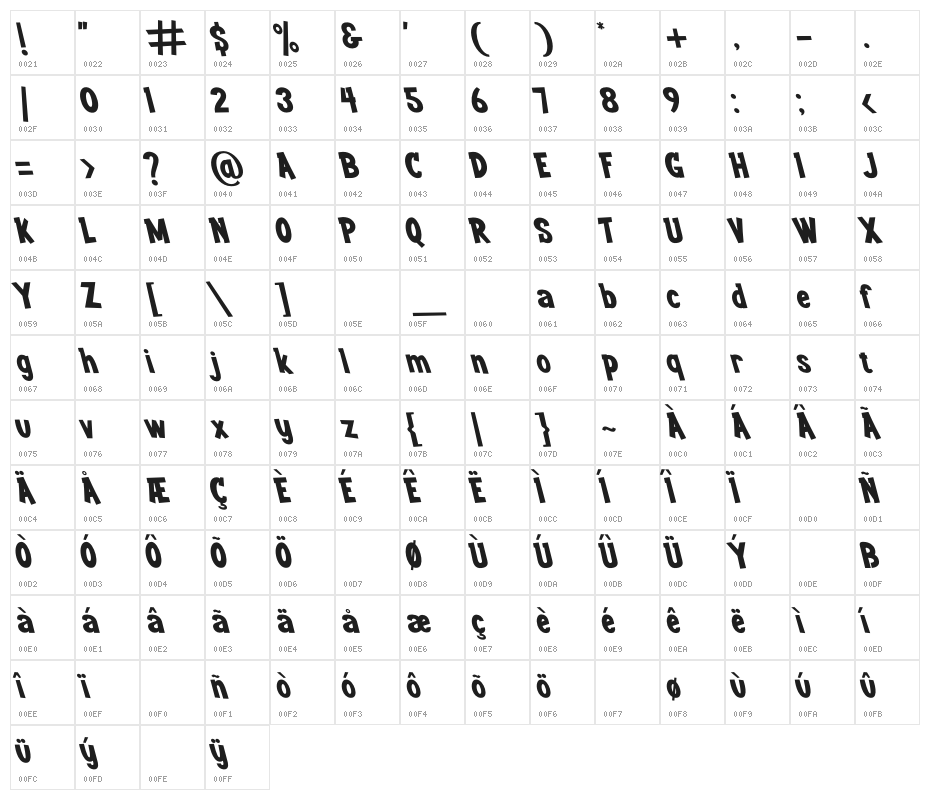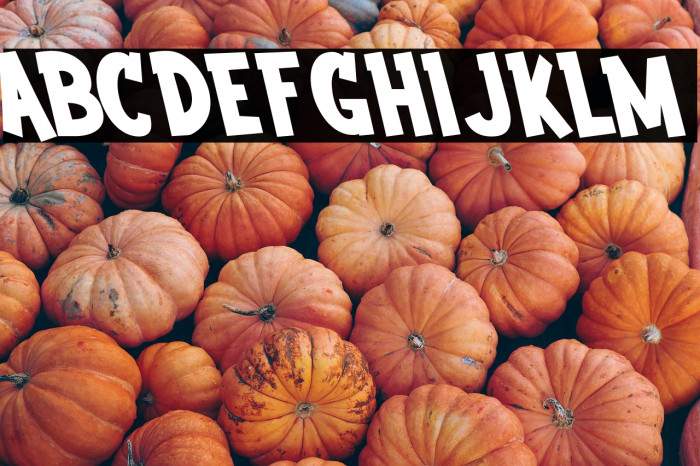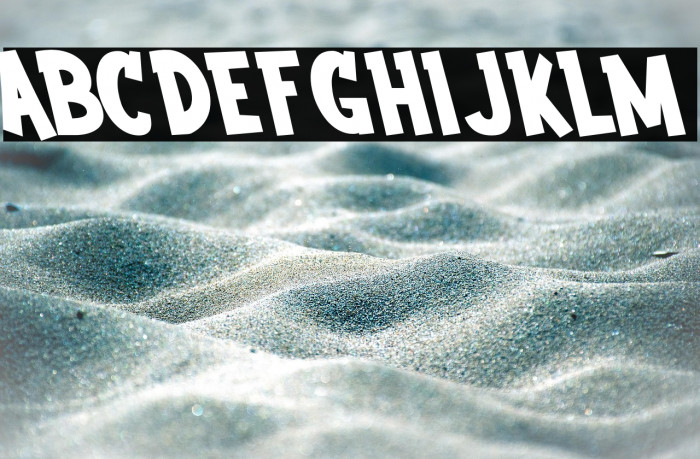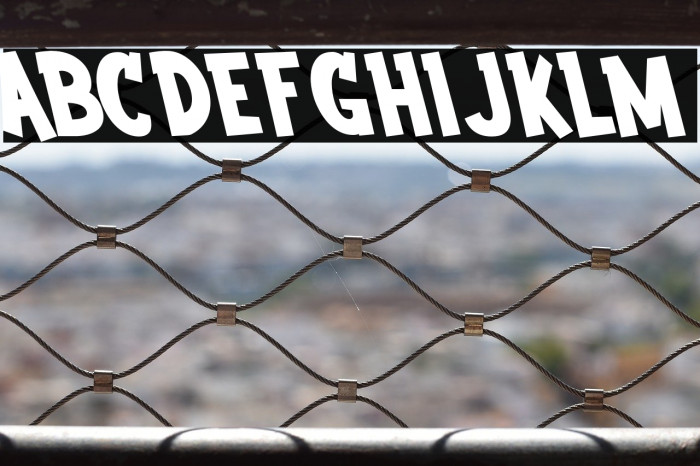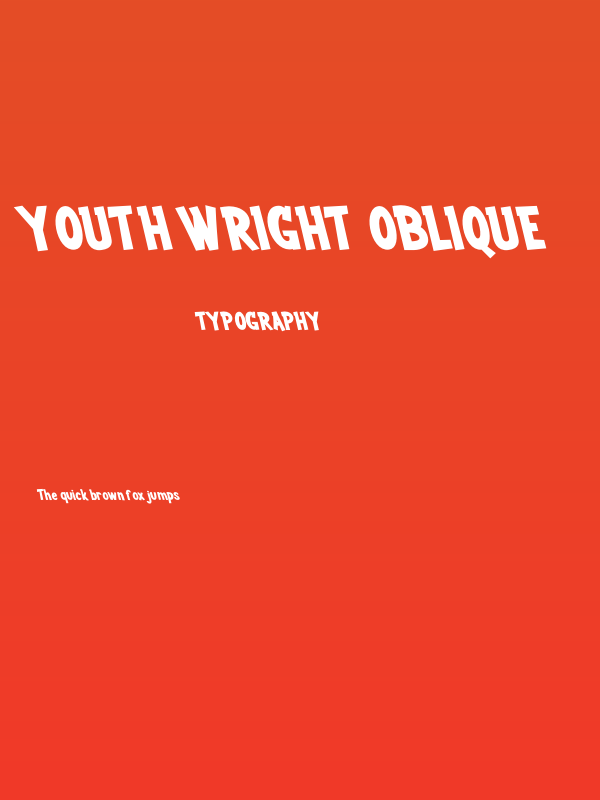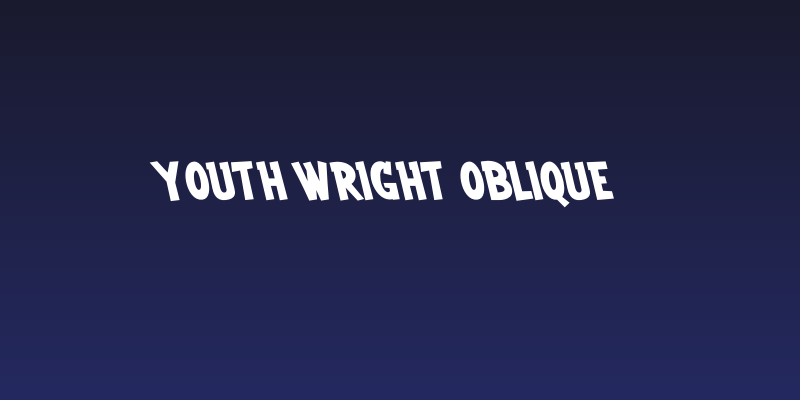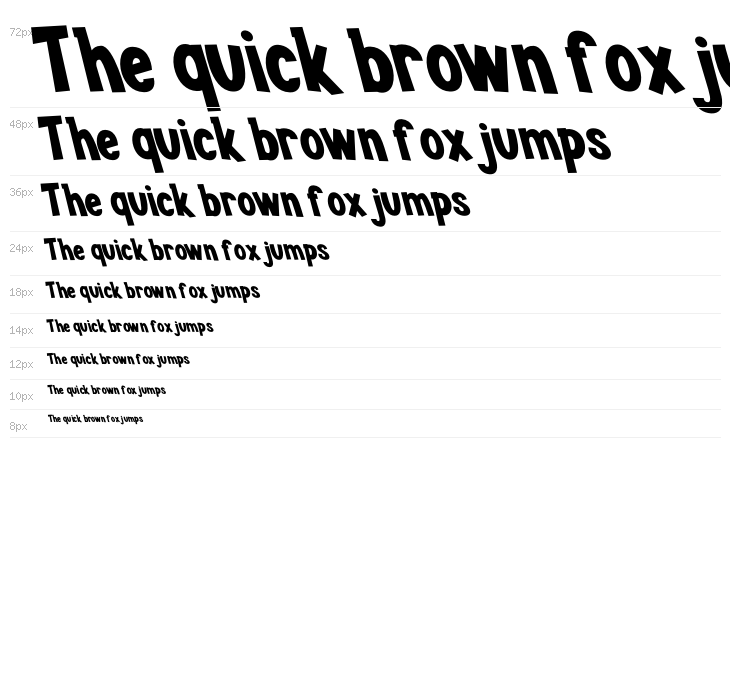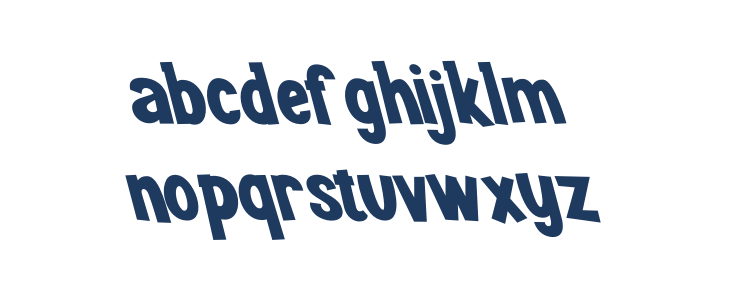
Youth wright Oblique Font
Youth wright Oblique Description
This font features a bold and playful design with a distinct oblique slant, giving it a dynamic and energetic appearance. The characters are thick and robust, with a slightly irregular shape that adds to its whimsical charm. The uppercase and lowercase letters maintain a consistent style, while the numerals and special characters complement the overall aesthetic. The font's exaggerated curves and angles make it stand out, making it ideal for creative and eye-catching designs.
| Overall Style | Playful, Energetic |
| Proposed Projects | Perfect for posters, children's books, comic strips, and playful branding projects. |